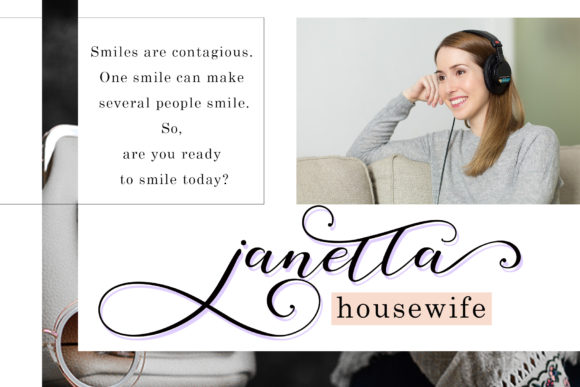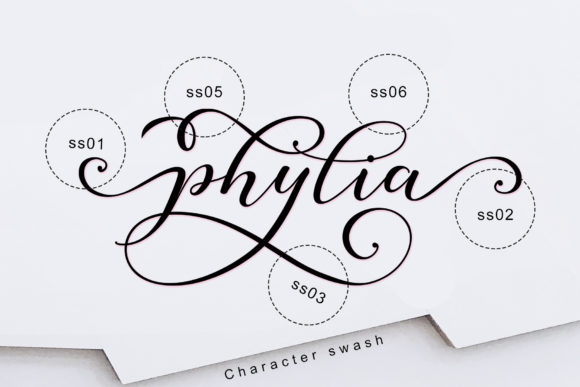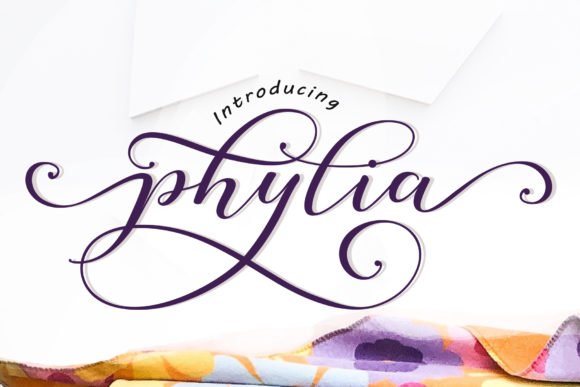
Introduction to Phylia Font
Phylia is a beautiful handwritten script font .
Perfect for branding projects, home-ware designs, product packaging and so much more .
Key Features of Phylia Font